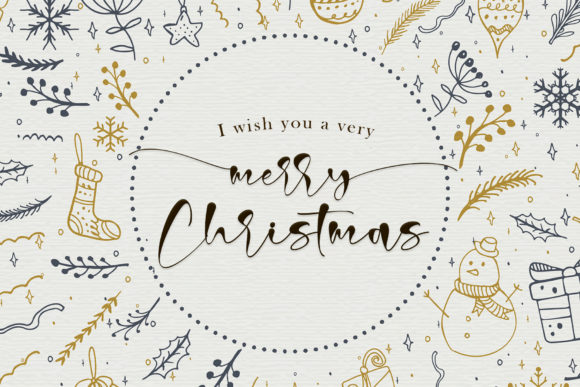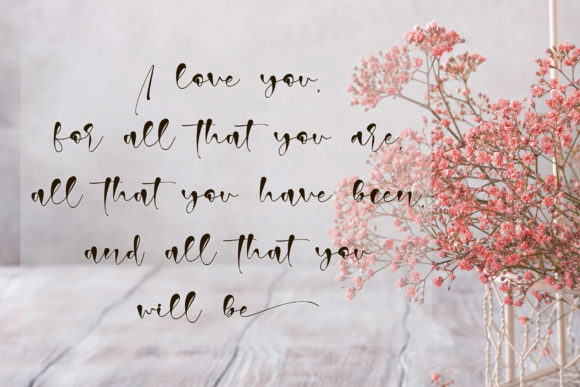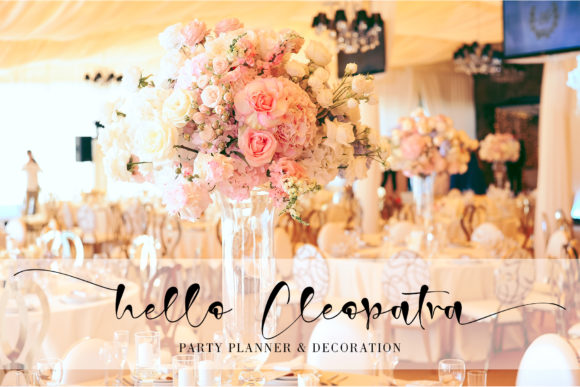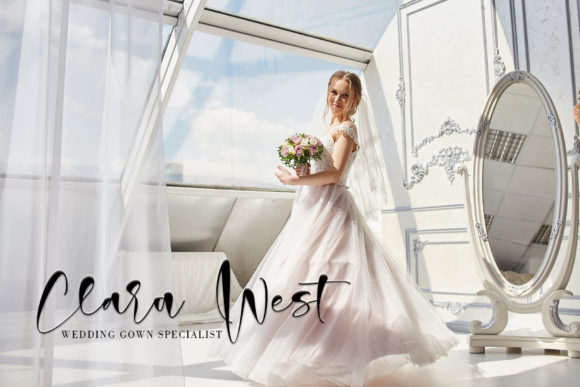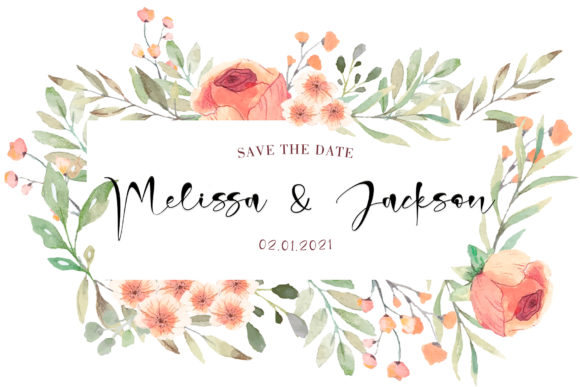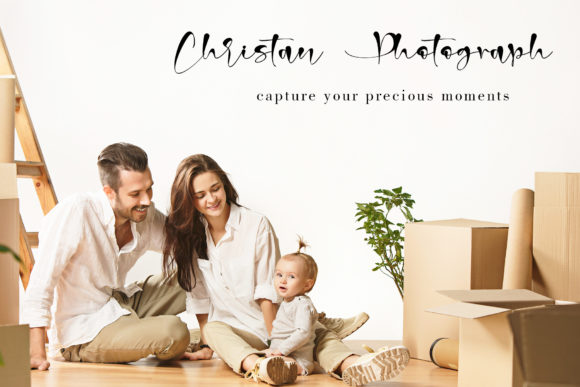
Introducing Christmas Signature: The Elegant Handwritten Font for Your Holiday Crafting Needs
As the holiday season approaches, designers and crafters are on the lookout for the perfect font to add a touch of elegance and whimsy to their Christmas projects. Look no further than Christmas Signature, a beautiful handwritten font that is sure to become a staple in your design toolkit. In this article, we’ll take a closer look at the features and benefits of Christmas Signature, and explore how you can use it to elevate your holiday crafting projects.
What is Christmas Signature?
Christmas Signature is an elegant and dainty handwritten font that features sweet and delicate swashes. This original look is perfect for adding a touch of sophistication and charm to a wide range of crafty ideas, from letterheads and titles to stationery and more. With its unique blend of classic and modern elements, Christmas Signature is sure to appeal to designers and crafters of all skill levels.
Key Features of Christmas Signature
So what sets Christmas Signature apart from other fonts? Here are just a few of its key features:
- Elegant and dainty design: Christmas Signature features a delicate, handwritten design that is perfect for adding a touch of elegance to your holiday projects.
- Sweet and delicate swashes: The font’s sweet and delicate swashes add a touch of whimsy and charm to your designs.
- Versatile: Christmas Signature is perfect for a wide range of crafty ideas, from letterheads and titles to stationery and more.
How to Use Christmas Signature in Your Holiday Crafting Projects
Now that we’ve covered the features and benefits of Christmas Signature, let’s take a look at how you can use it in your holiday crafting projects. Here are a few ideas to get you started:
- Letterheads and titles: Use Christmas Signature to add a touch of elegance to your letterheads and titles. Perfect for holiday greeting cards, invitations, and more.
- Stationery: Add a touch of whimsy and charm to your stationery with Christmas Signature. Perfect for holiday gift tags, wrapping paper, and more.
- Holiday cards: Use Christmas Signature to create beautiful and elegant holiday cards. Perfect for sending to friends and family.
- Crafting projects: Christmas Signature is perfect for a wide range of crafting projects, from scrapbooking and journaling to papercrafting and more.
Tips and Tricks for Getting the Most Out of Christmas Signature
Here are a few tips and tricks for getting the most out of Christmas Signature:
- Experiment with different colors: Christmas Signature looks great in a wide range of colors, from traditional holiday colors like red and green to more modern colors like gold and silver.
- Mix and match with other fonts: Don’t be afraid to mix and match Christmas Signature with other fonts to create a unique and eye-catching look.
- Use it for digital projects: Christmas Signature is perfect for digital projects, from social media graphics to holiday e-cards.
Christmas Signature is a beautiful and elegant handwritten font that is perfect for adding a touch of sophistication and charm to your holiday crafting projects. With its unique blend of classic and modern elements, Christmas Signature is sure to appeal to designers and crafters of all skill levels. Whether you’re looking to create beautiful holiday cards, elegant letterheads, or whimsical crafting projects, Christmas Signature is the perfect font for the job.